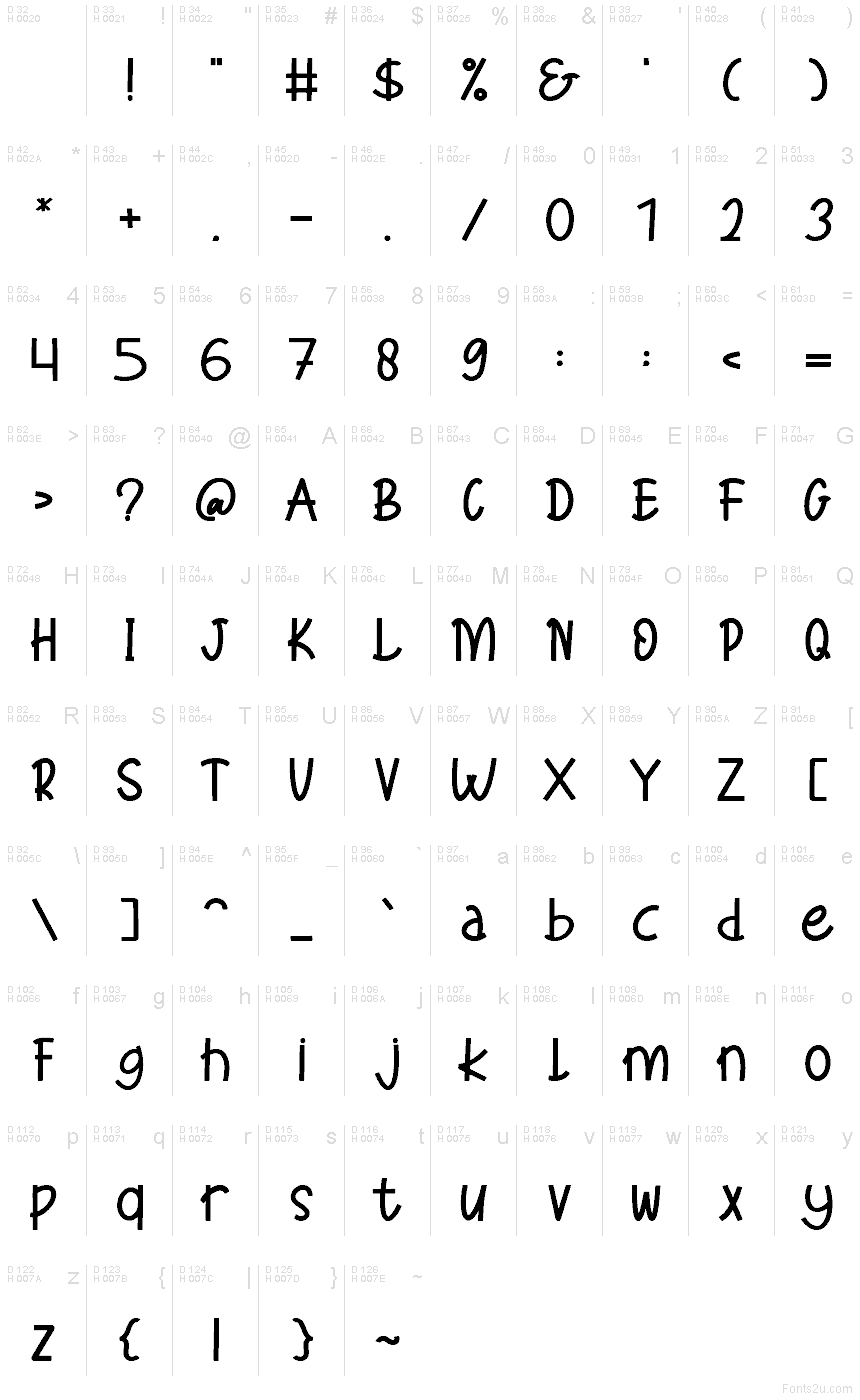
Xoana Rush Regular
Xoana Rush font by Wildan Type is a comic display typeface with smooth curvature. It features an informal aesthetic, equipped with casual character arrangements that paves the way for a modern appeal. With each of its unique elements and letters, this youthful font will impress your audience and leave them wanting more.
The free font elevates diary covers, product packaging designs, editorials and books for children. This handwritten typeface brings life into greeting cards, ads that need some spicing up as well as other advertising material like flyers or posters where it can add meaning too since each letter forms part of what makes these pieces special together!